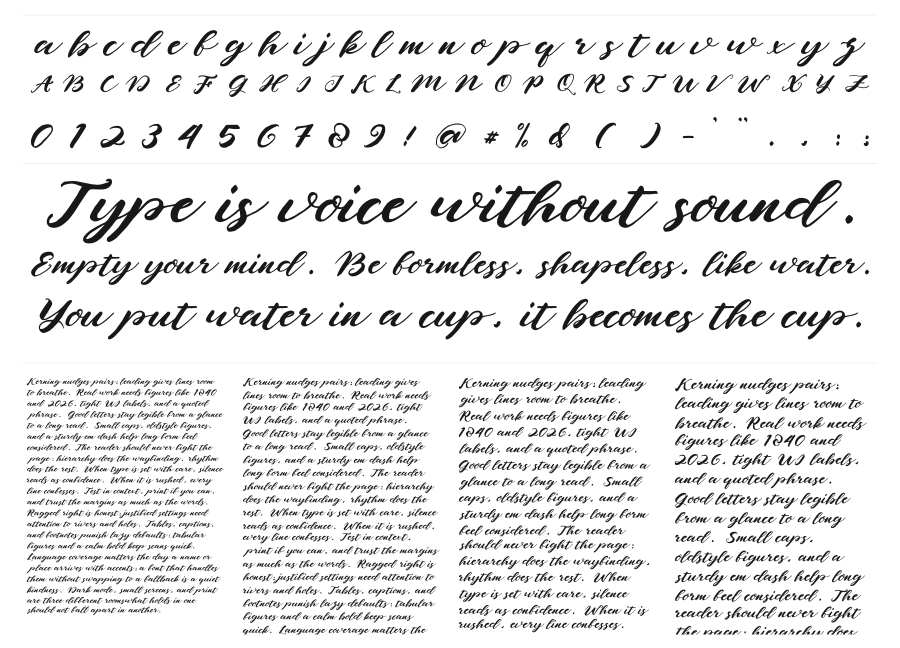
Naghita Brush
Naghita Brush is a bold, flowing brush script with strong stroke contrast and sweeping connected curves. It carries the energy of hand-lettering with thick ink-like downstrokes and delicate hairline transitions. Great for logos, packaging labels, and any headline where warmth and a handcrafted feel matter.